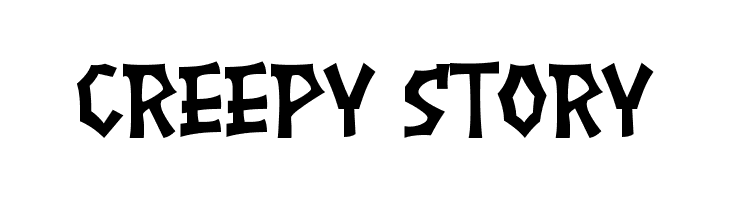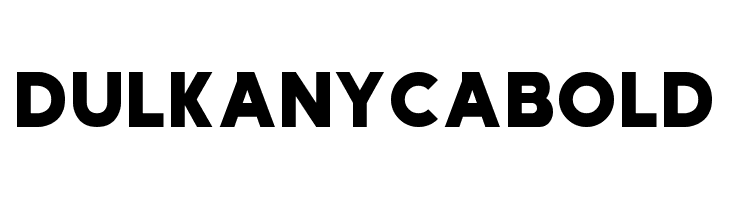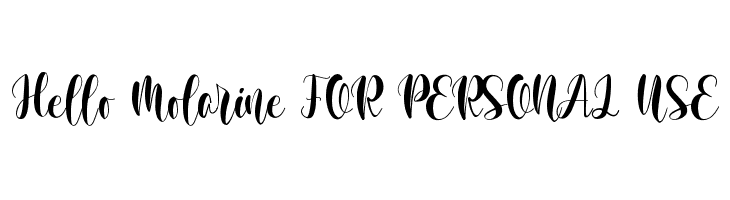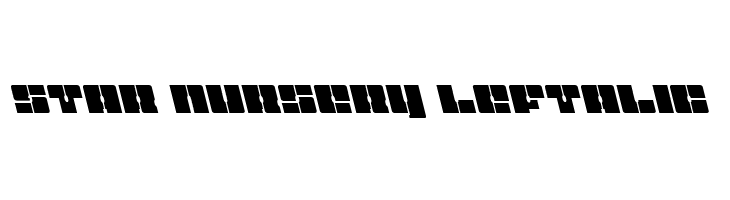
A bold, geometric font with a futuristic and industrial style.
A bold, modern font with playful geometric elements and consistent stroke width.
A clean, modern sans-serif font with uniform stroke widths and high legibility.
A bold, hand-drawn font with a playful and whimsical style.
A graceful, cursive font with elongated, flowing letterforms.
A dynamic and elegant script font with flowing cursive letters.
A lively, flowing script font with elegant cursive letterforms.
A modern, geometric sans-serif font with clean lines and balanced spacing.
A sleek, modern, light italic font with smooth curves and a dynamic appearance.
A playful font with characters embedded in fly illustrations, offering a whimsical and decorative style.